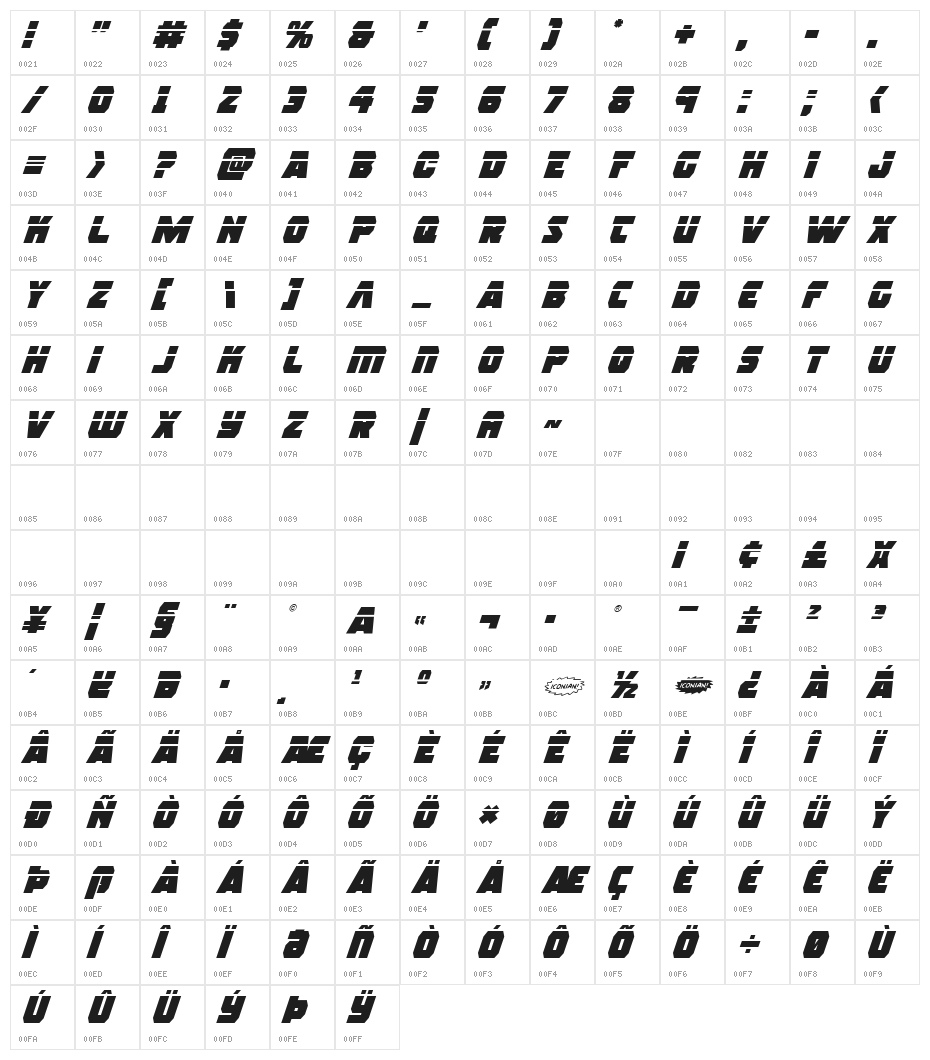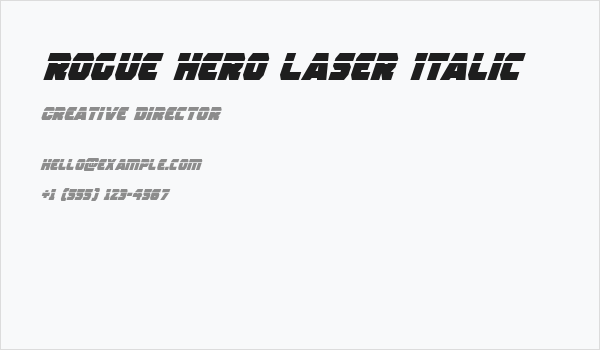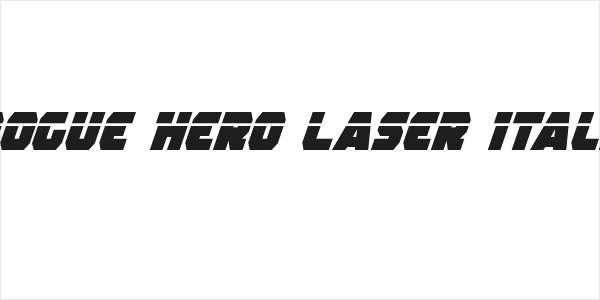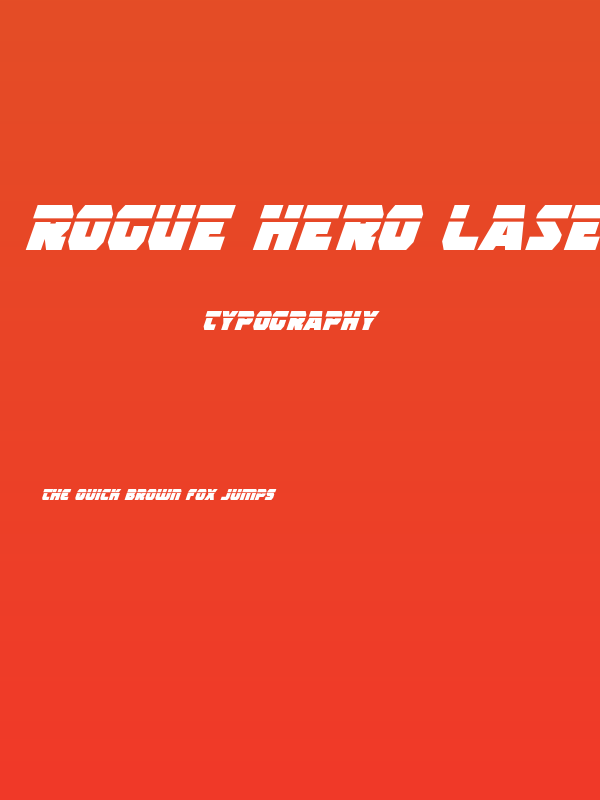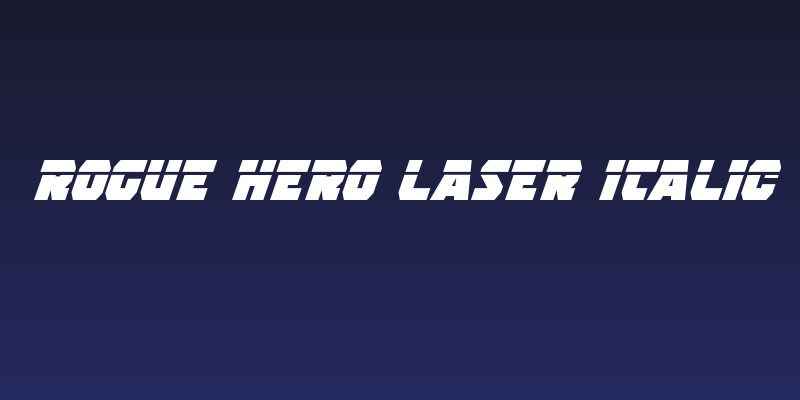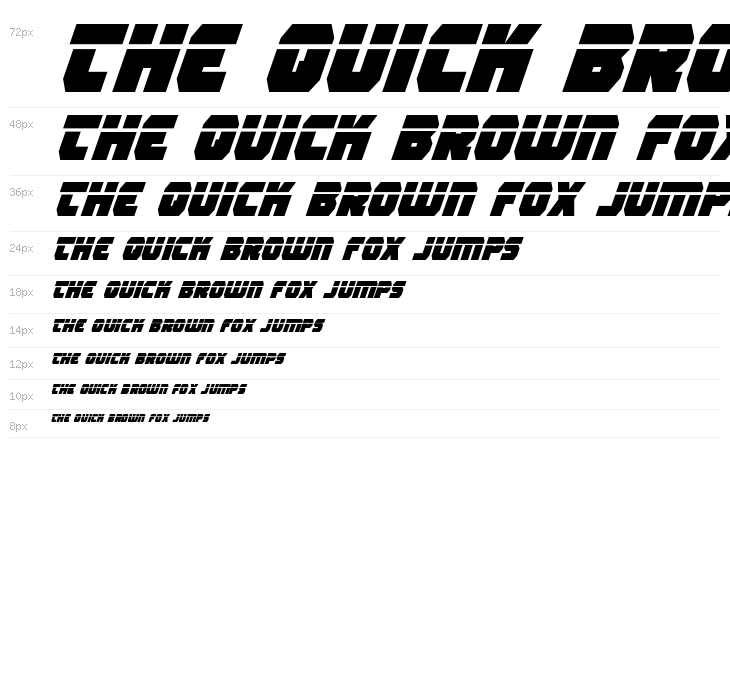
Rogue Hero Laser Italic Font
Rogue Hero Laser Italic Description
This font features a bold, futuristic design with sharp, angular edges and a distinct italic slant, giving it a dynamic and energetic appearance. The characters are tightly spaced, enhancing its compact and cohesive look. The uppercase and lowercase letters maintain a consistent style, with the numbers and special characters following suit. The font's high contrast in stroke thickness adds to its striking visual impact, making it ideal for attention-grabbing designs. Its unique style is reminiscent of sci-fi and action themes, perfect for projects that require a bold statement.
| Proposed Projects | Ideal for sci-fi themed posters, video game titles, and action movie graphics. |